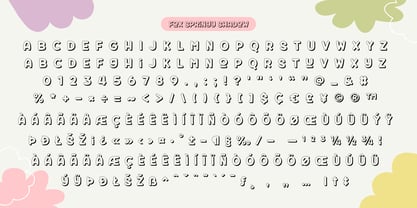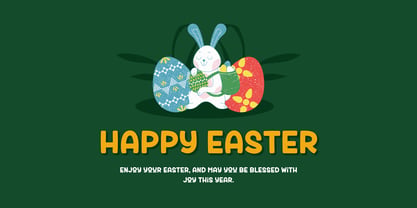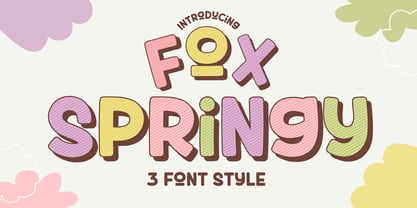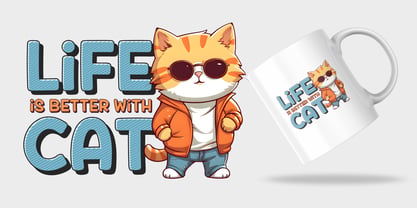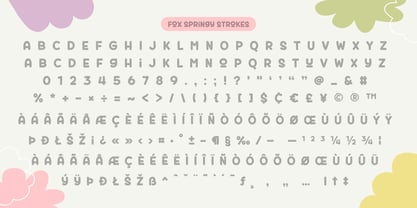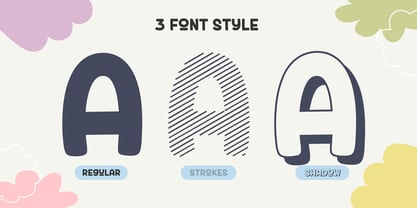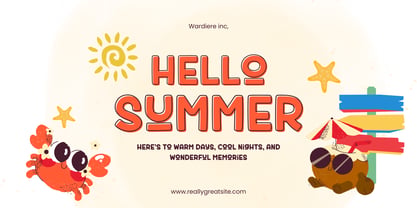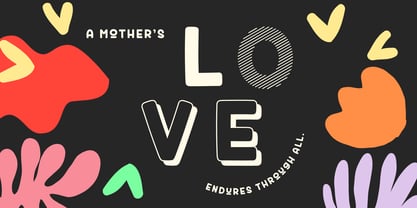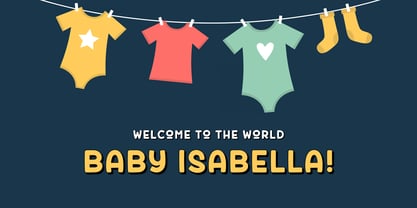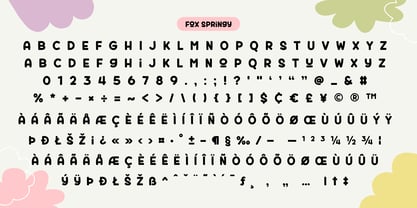
Fox Springy
The Fox Springy Font Family was designed by Rattana Rattanawan and published by Fox7. Fox Springy contains 3 styles and family package options. More about this family
Fox Springy is a fun, lively, and eye-catching display font perfect for projects that need a touch of playfulness and charm. This font comes in three unique styles:
✨ Regular – A clean and bold look, great for headlines and standout text.
✨ Strokes – A stylish, hand-drawn striped effect for a creative touch.
✨ Shadow – A bubbly 3D-style design for a playful and dynamic feel.
Designed with a soft, rounded aesthetic, Fox Springy is ideal for children's books, posters, branding, packaging, and cute merchandise. Its warm, pastel color inspiration adds a cheerful and inviting vibe to any design.